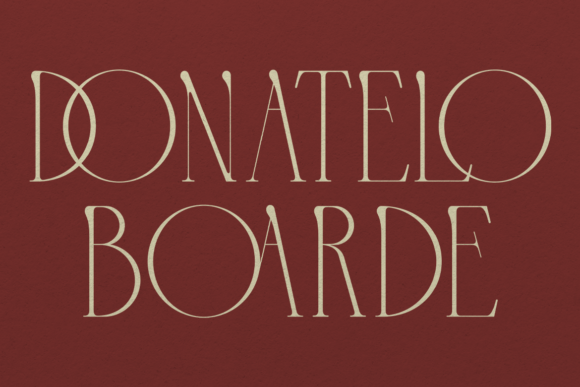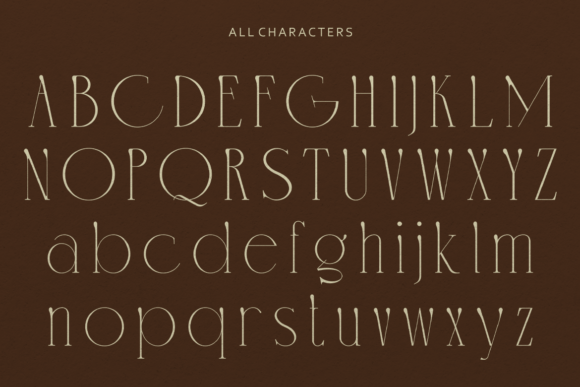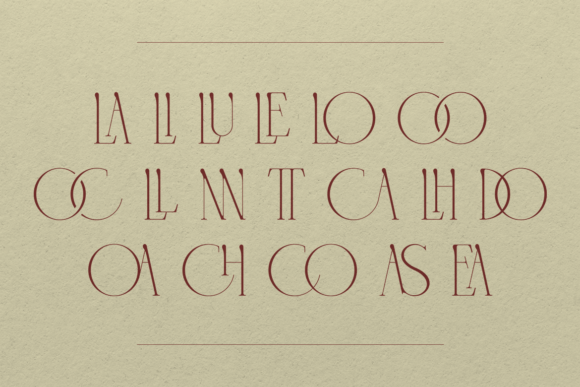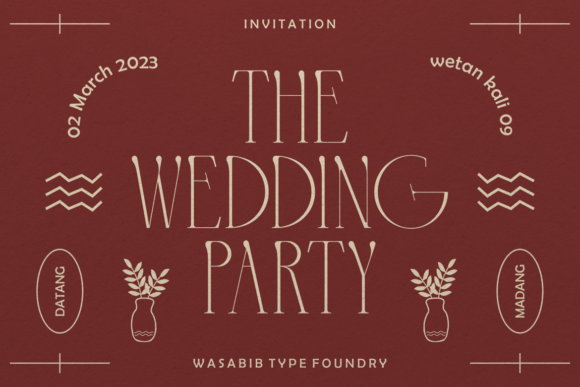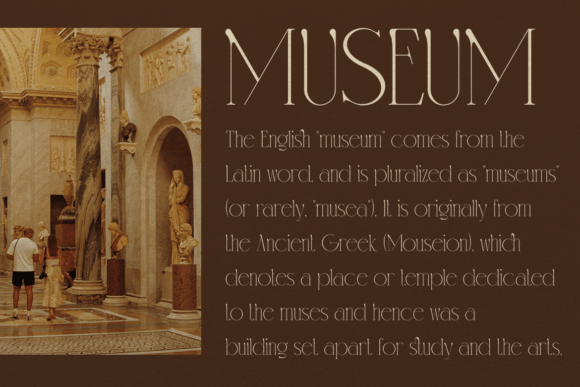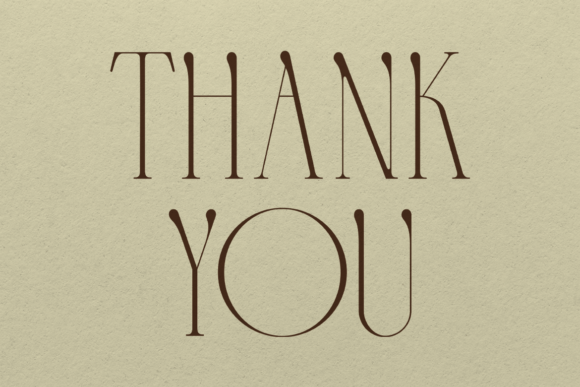
Introducing Coreta Font: Elegance Meets Modern Flexibility
In the world of typography, few fonts manage to strike a balance between classic charm and modern adaptability. Coreta Font is one such exceptional typeface that effortlessly merges traditional elegance with contemporary flexibility, making it a versatile tool for designers and crafters alike. With its smooth curves and thoughtfully designed letter proportions, Coreta creates a stunning visual harmony that can elevate any design project.
The Essence of Coreta Font
Coreta is an elegant serif font that exudes sophistication and refinement. Its design is characterized by smooth curves and balanced letterforms, which contribute to its classic charm. However, what sets Coreta apart is its modern flexibility. This font is not just a relic of traditional typography; it is designed to meet the demands of modern design projects, from digital interfaces to print materials.
One of the standout features of Coreta Font is its versatility. It is perfect for a wide range of projects, including wedding invitations, corporate designs, digital media, and more. Whether you’re creating a sophisticated wedding invitation or a professional corporate identity, Coreta brings an element of elegance and refinement that is hard to match. Its adaptability makes it a go-to font for designers who seek to create visually appealing and effective designs across various mediums.
Readability and Artistic Statement
Coreta’s design is not just about aesthetics; it’s also highly functional. The font’s letter proportions are carefully considered to ensure optimal readability at any size. This makes Coreta an excellent choice for both large-scale headlines and smaller body text. But Coreta is more than just a functional font; it’s an impressive statement of art. Its unique design elements and elegant appearance make it a standout in the world of typography, allowing designers to create works that are both visually striking and artistically significant.
Elevating Design with Coreta
Coreta Font has the power to elevate the appeal of every design project it is used in. Its versatile touch of elegance can transform mundane designs into something extraordinary. For designers and crafters, Coreta offers a wide range of creative possibilities. Here are a few ways Coreta can enhance your designs:
- Wedding and Event Invitations: Add a touch of sophistication and romance to your wedding invitations and event announcements.
- Corporate Branding: Create a professional and elegant corporate identity that stands out.
- Digital Media: Use Coreta in digital platforms to add a classy and refined look to your content.
- Print Materials: From brochures to business cards, Coreta can bring an element of elegance to your print materials.
Why Choose Coreta Font?
Choosing Coreta Font for your design projects comes with numerous benefits:
- Elegant and Modern: Offers a perfect blend of classic elegance and modern flexibility.
- High Readability: Ensures your message is conveyed clearly, regardless of the size.
- Versatile: Suitable for a wide range of design projects.
- Artistic Statement: Adds an artistic value to your designs.
Coreta Font is a remarkable typeface that brings together the best of both worlds: the timeless elegance of serif fonts and the adaptability required for modern design. Its smooth curves, balanced design, and versatile nature make it an invaluable tool for designers and crafters looking to create stunning visual harmonies. Whether you’re working on a wedding invitation, a corporate design, or any other project, Coreta offers a touch of elegance and sophistication that can elevate your designs to new heights. With Coreta, you’re not just choosing a font; you’re making a statement of art and elegance.